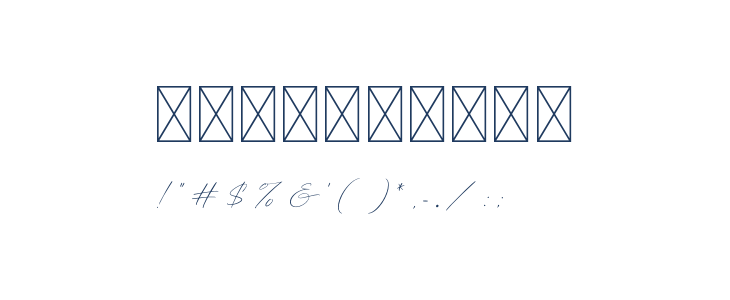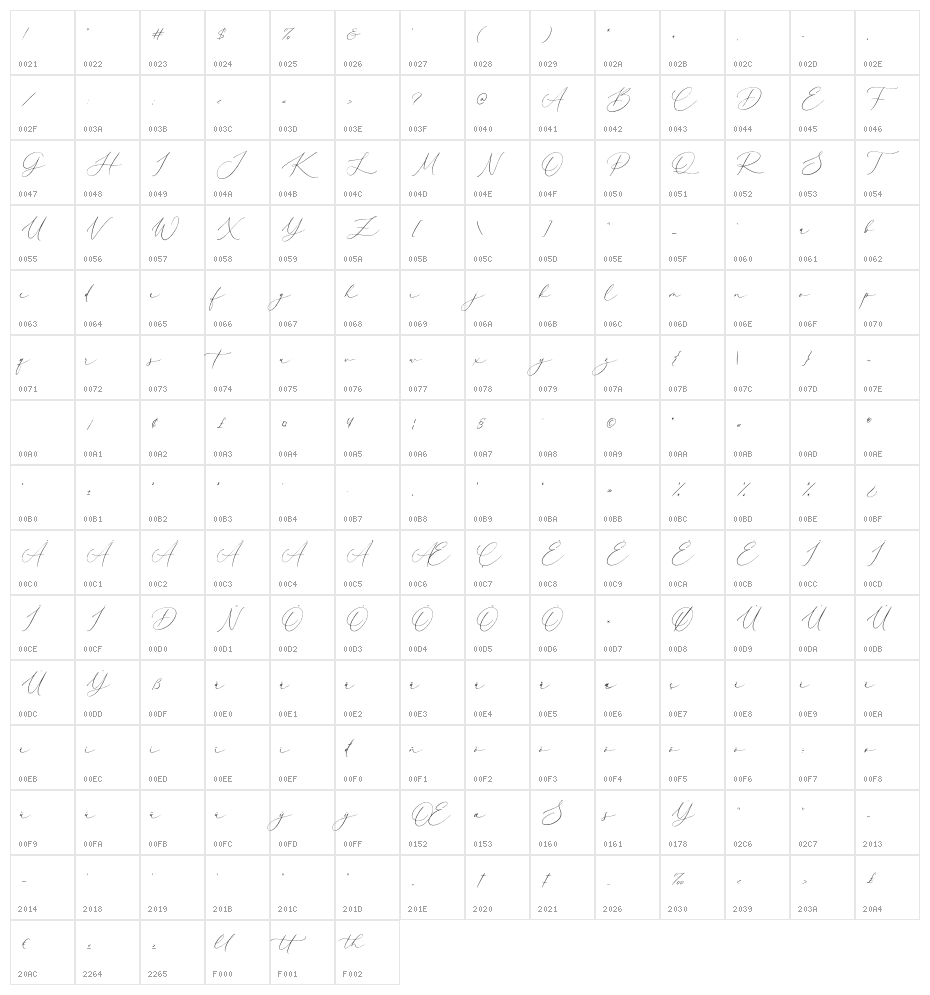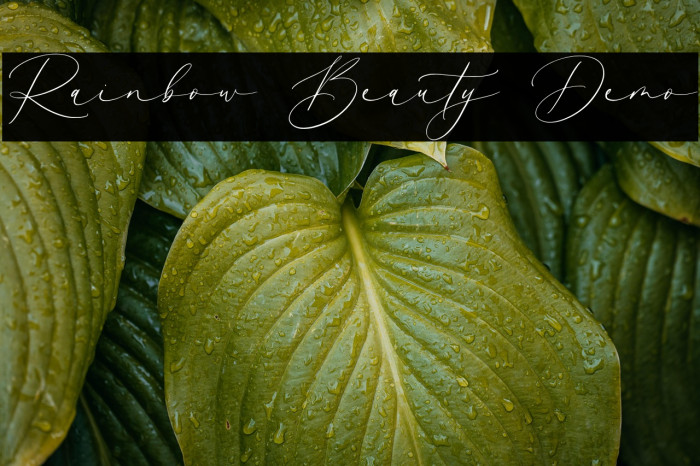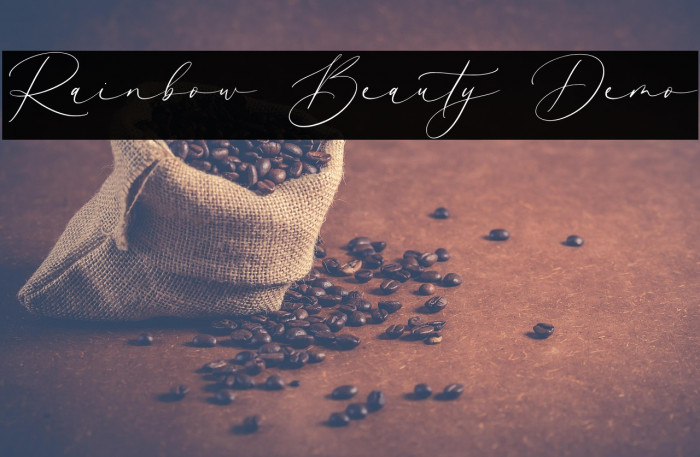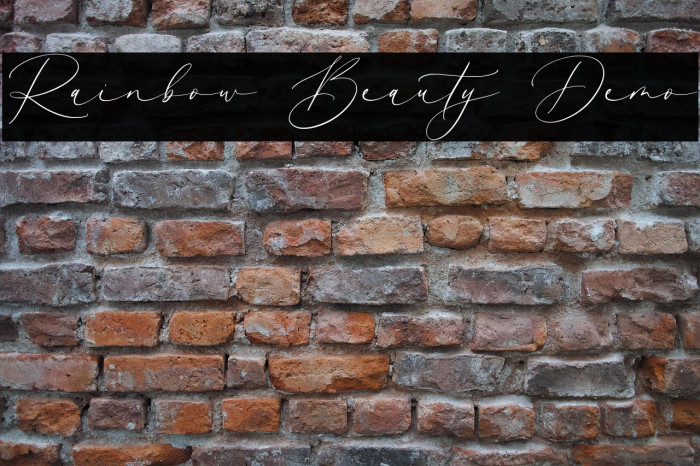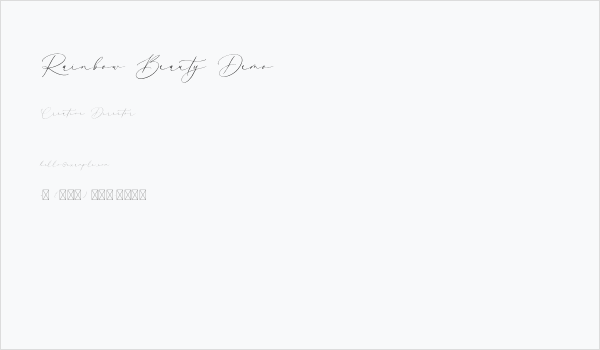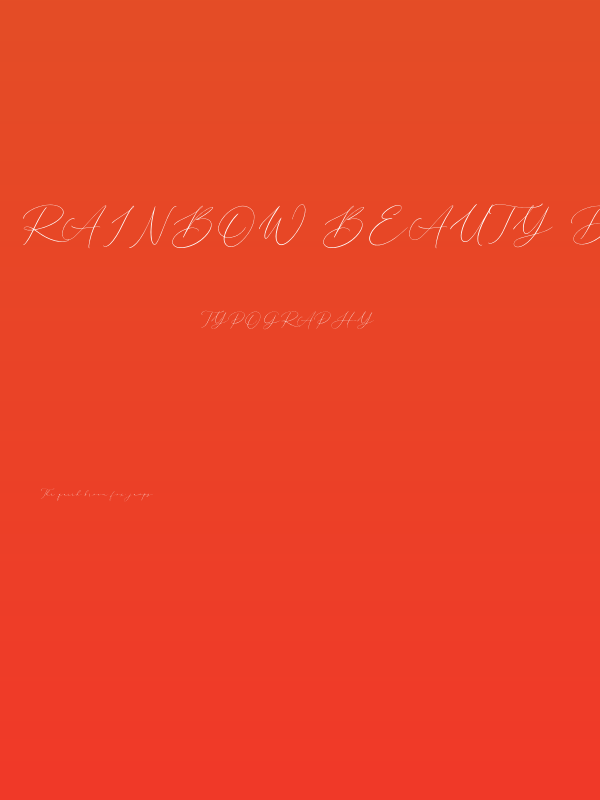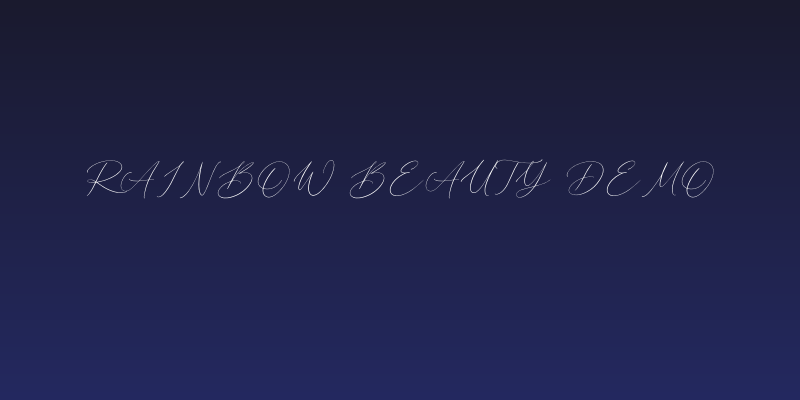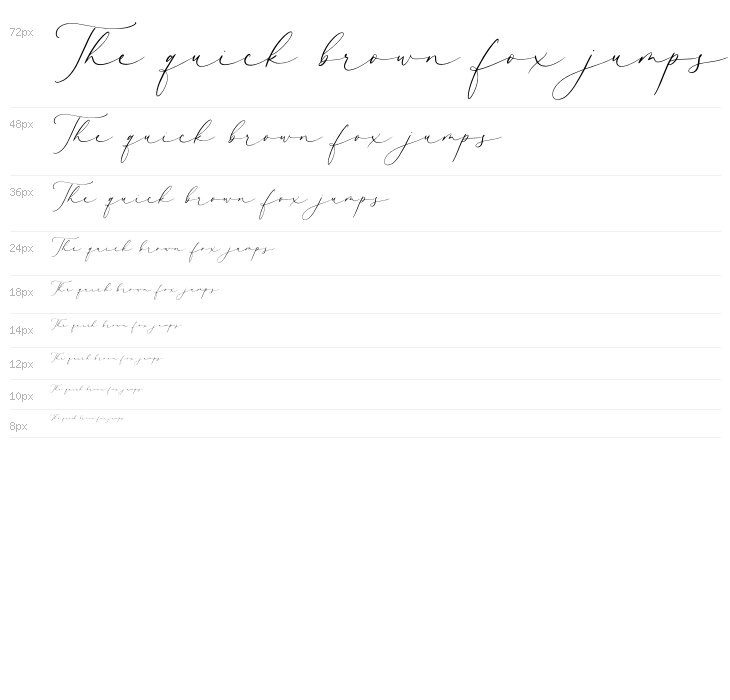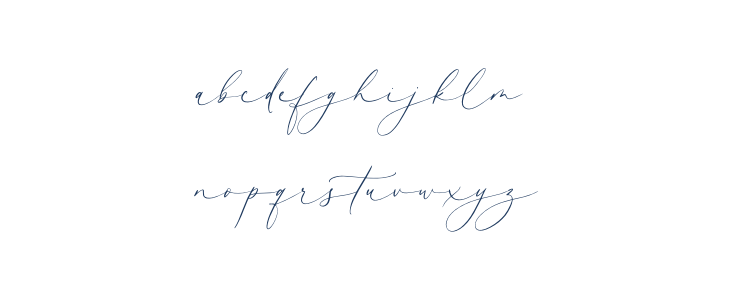
Rainbow Beauty Demo Font
Rainbow Beauty Demo Description
This elegant script font features a delicate and flowing style, characterized by its thin, graceful lines and cursive letterforms. The uppercase letters are slightly more ornate, with subtle flourishes that add a touch of sophistication. The lowercase letters maintain a consistent flow, enhancing the font's overall fluidity. The spacing between characters is tight, creating a seamless and connected appearance. This font exudes a sense of elegance and refinement, making it ideal for projects that require a touch of class and beauty.
Overall StyleElegant
Use CaseLogos, Invitations, Decorative text
Proposed ProjectsIdeal for wedding invitations, elegant branding, personal stationery, and romantic quotes.